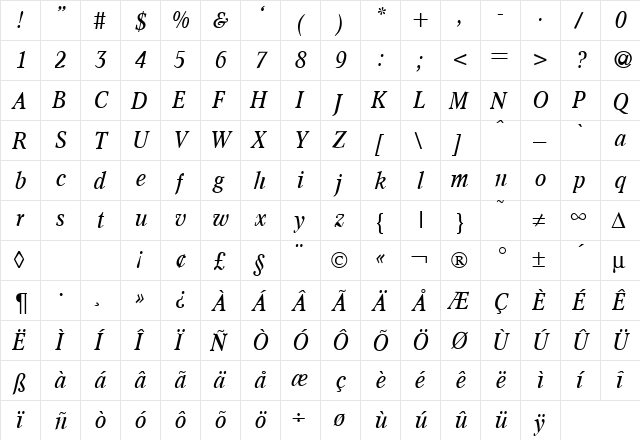
ConceptNova RegularItalic
Design Context for ConceptNova Typeface
ConceptNova takes a measured approach to typography — its balanced proportions and neutral character make it a reliable workhorse for both digital and print work. Its italic angle brings a sense of urgency and motion to the letterforms.
Pro Tip: Use ConceptNova for emphasis, pull quotes, and subheadings where its slanted energy can add rhythm to the layout.